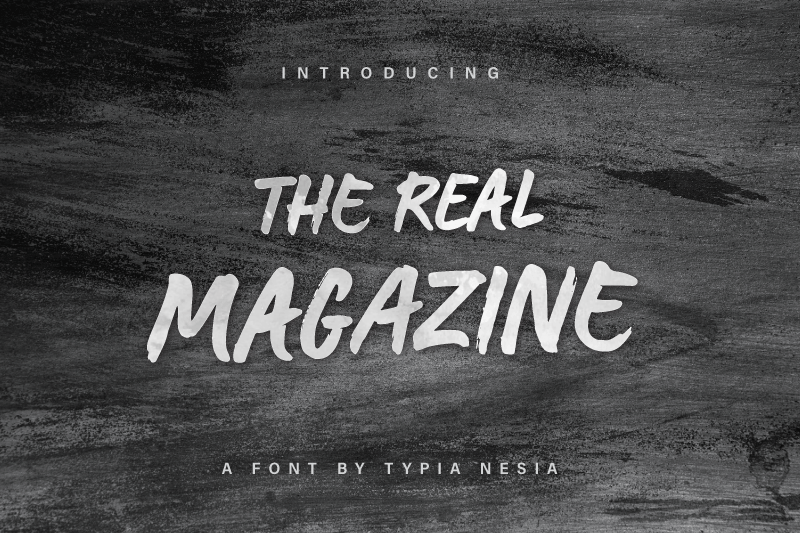
The Real Magazine
The Real Magazine Font
The Real Magazine is a dry brushed / marker font. It suitable for logo, branding, t-shirt, poster, packaging, book cover, hipster design, cards, and any brush lettering needs and moreThank you! and hope you’re having fun with “The Real Magazine” brush font! Happy creating!Typia Nesia Std